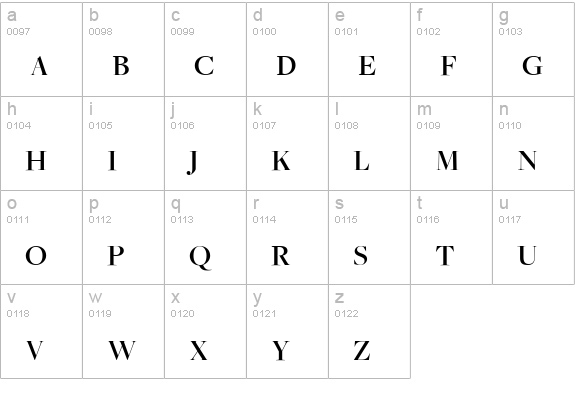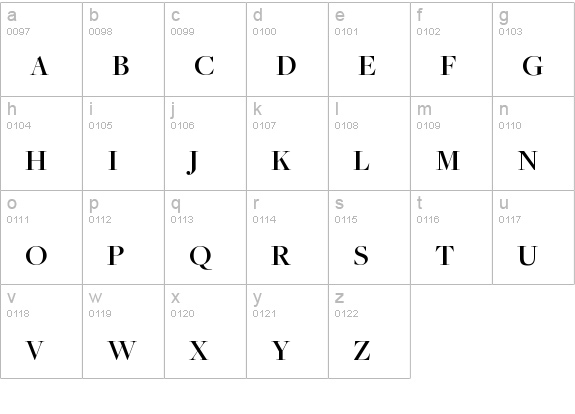
FreightBigMediumSC Font Details
FreightBigMediumSC is a versatile and modern font that is perfect for adding a touch of sophistication to your design projects. With its bold and medium weight, this font exudes confidence and strength, making it ideal for headlines and titles. The clean lines and sharp edges of FreightBigMediumSC give it a sleek and contemporary look that is sure to make a statement. Best of all, FreightBigMediumSC is available for free download at FontsMarket.com. This means that you can easily access this high-quality font without any cost, making it a valuable addition to your font collection. Whether you're working on a print design, website, or any other project that requires a strong and stylish font, FreightBigMediumSC is the perfect choice. Download it today and elevate your designs with this exceptional typeface.